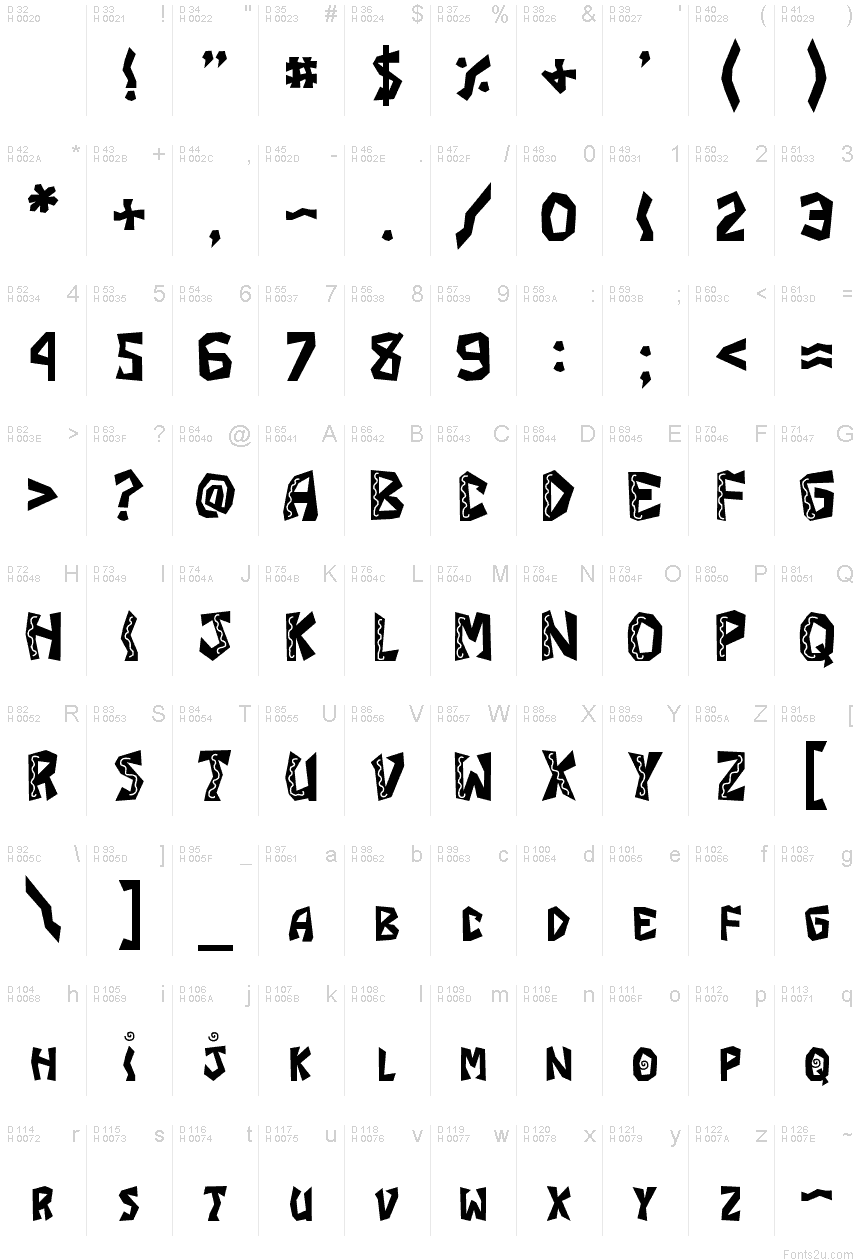
JI Burrito
JI Burrito font by Jeri Ingalls is a free Mexican decorative font that looks like it was snipped from black papel picado and splashed with a strip of hot sauce. The chunky, angled letters wobble with hand-cut energy, while the wavy inner strokes feel like steaming fillings or drizzled crema running through each shape. It’s bold, loud, and instantly reads as fiesta-ready without feeling stiff or over-polished.
Using JI Burrito, you can punch up taco truck branding, restaurant menus, Cinco de Mayo posters, party invitations, food packaging, or playful social media graphics. This free font shines at large sizes where its jagged edges and squiggles stay crisp and legible; pair it with a clean, condensed sans serif for body text so the headliners stay spicy but easy to read.